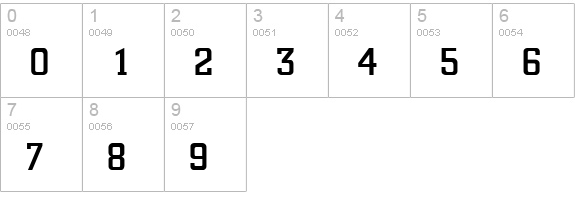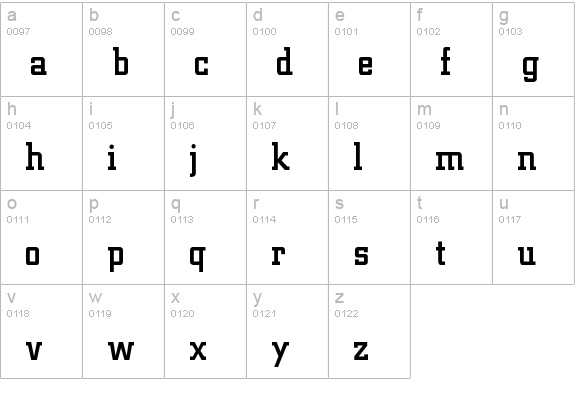
Civic fed Font Details
Introducing Civic Fed Font, a stylish and modern typeface that exudes sophistication and professionalism. With its sleek lines and elegant curves, this font is perfect for a wide range of design projects, from branding to editorial design. The Civic Fed Font is versatile and timeless, making it a must-have for any designer looking to elevate their work. What's even better is that Civic Fed Font is completely free to download at FontsMarket.com! That's right, you can enhance your designs with this beautiful font without having to spend a penny. Whether you're working on a website, a poster, a logo, or any other project, Civic Fed Font is sure to make a statement and leave a lasting impression. Download it today and take your designs to the next level!